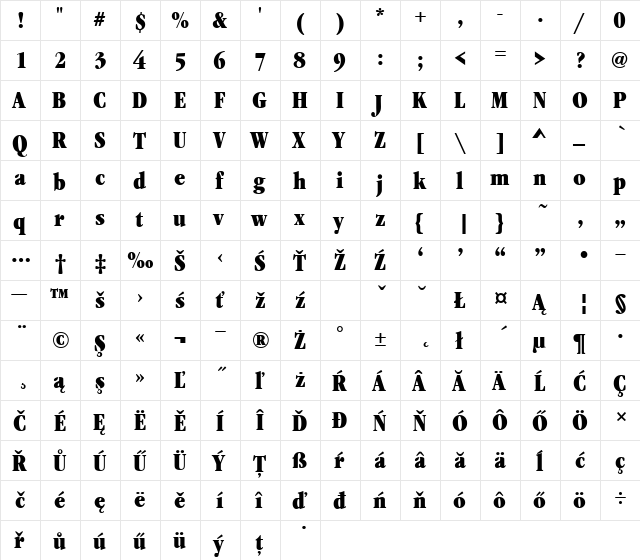
GaramItcTEEUltCon Regular
Design Context for GaramItcTEEUltCon Typeface
GaramItcTEEUltCon takes a measured approach to typography — its balanced proportions and neutral character make it a reliable workhorse for both digital and print work.